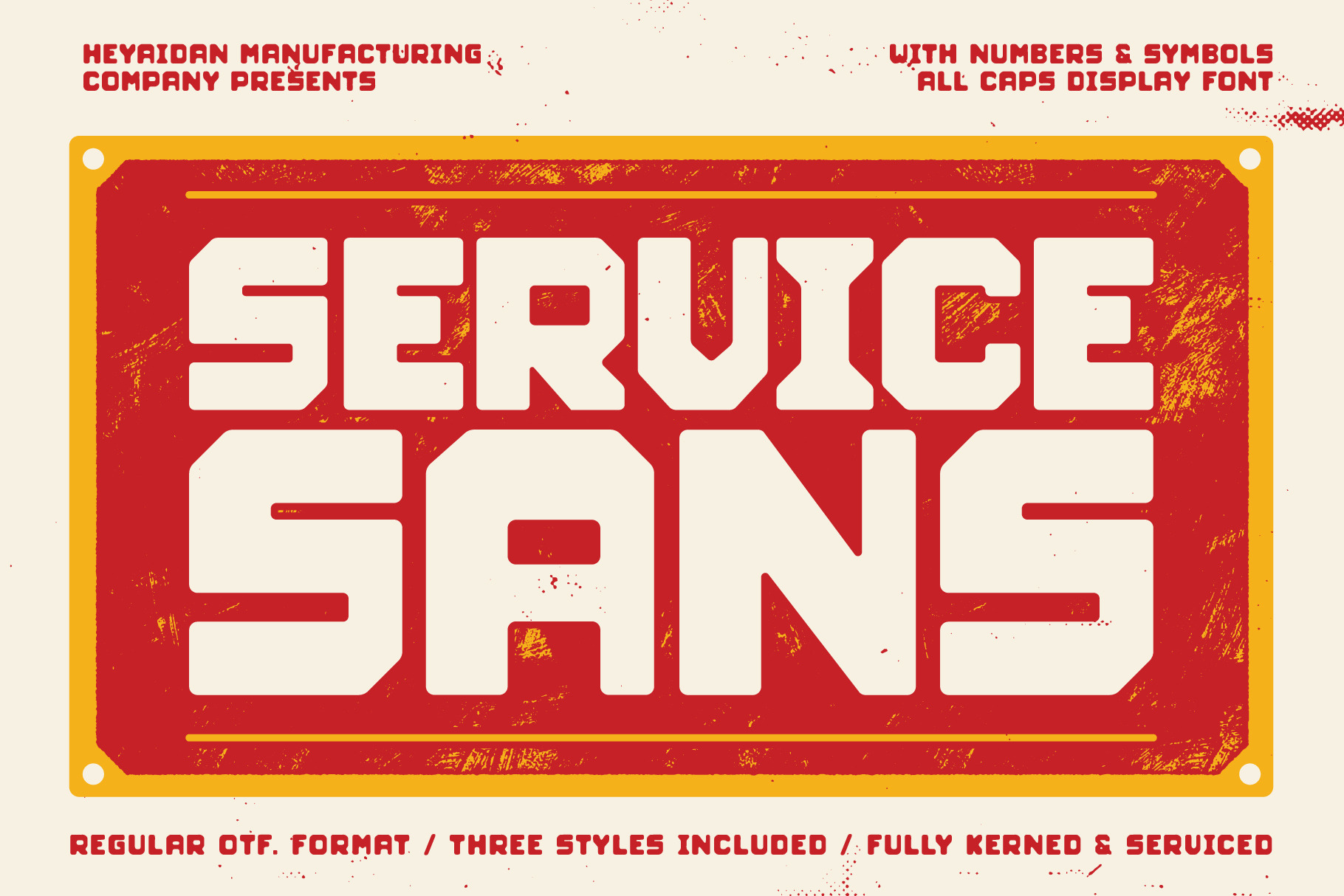
Service Sans | Retro Blocky Font
At your Service! Introducing Service Sans, a font that I modified from a typographic title I spotted in a video, at an art gallery.
Do your designs need some sprucing up? Now is the time to book in your next Service and get your greasy hands on this bold and retro font. Only the best in the west when it comes to solid forms and a mixtures of styles. Don't even hesistate, don't even worry, don't even give it a second thought, drive away today with a fresh service from HeyAidan MFG Co.
Service Sans is an All Caps display font featuring three styles to work with; Sharp, Rounded and Inked. Sharp is geometric with crispy edges, Rounded is similar to the latter but with rounded corners, while Inked looks some greasy fingers got all over it (in the best way possible of course!).